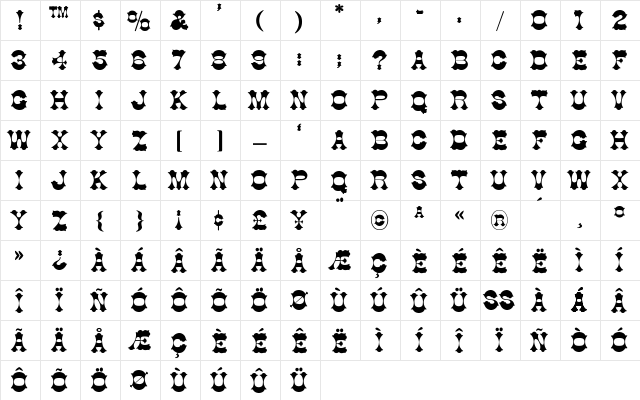
Cottonwood-SemiBold Regular Font Preview
Cottonwood-SemiBold Regular
Design Context for Cottonwood-SemiBold Typeface
Cottonwood-SemiBold taps into classic Western woodtype traditions — bold, characterful, and impossible to ignore. Its bold stroke weight gives it real presence on the page.
A natural fit for craft spirits, ranch branding, rodeo events, and Americana-inspired design work.
Font Pairing: Combine Cottonwood-SemiBold with a simple slab or neutral sans — period-accurate companions reinforce the vintage feel without competing for attention.
Pro Tip: Use Cottonwood-SemiBold for short, impactful bursts of text — it shines in poster headlines and product names rather than extended copy.